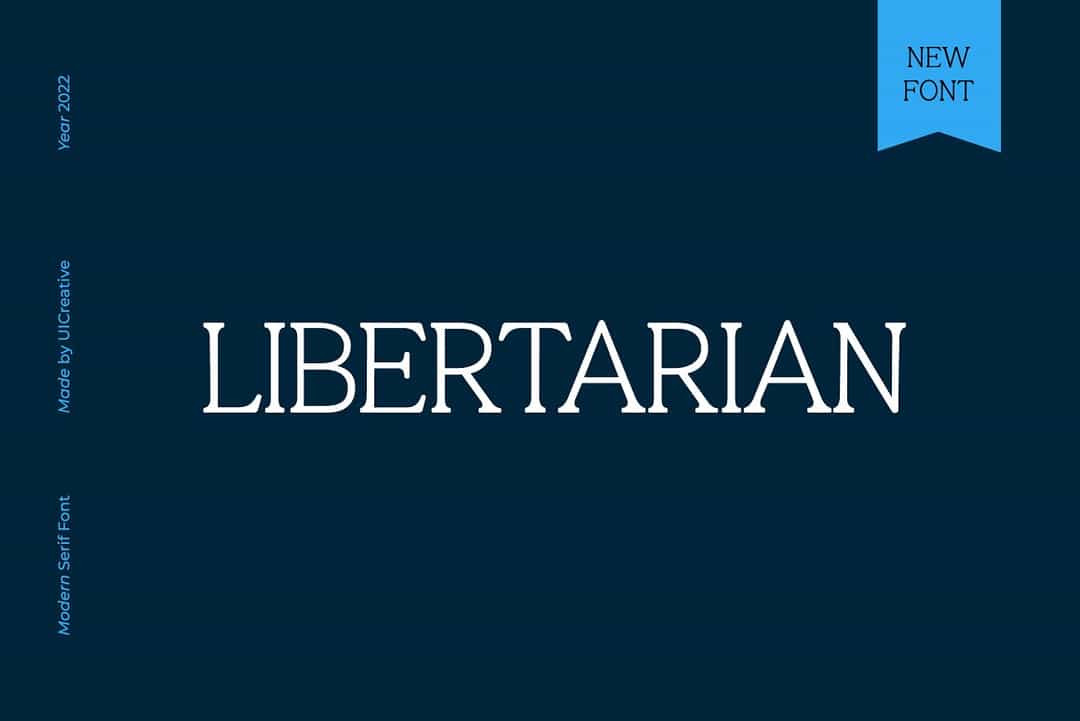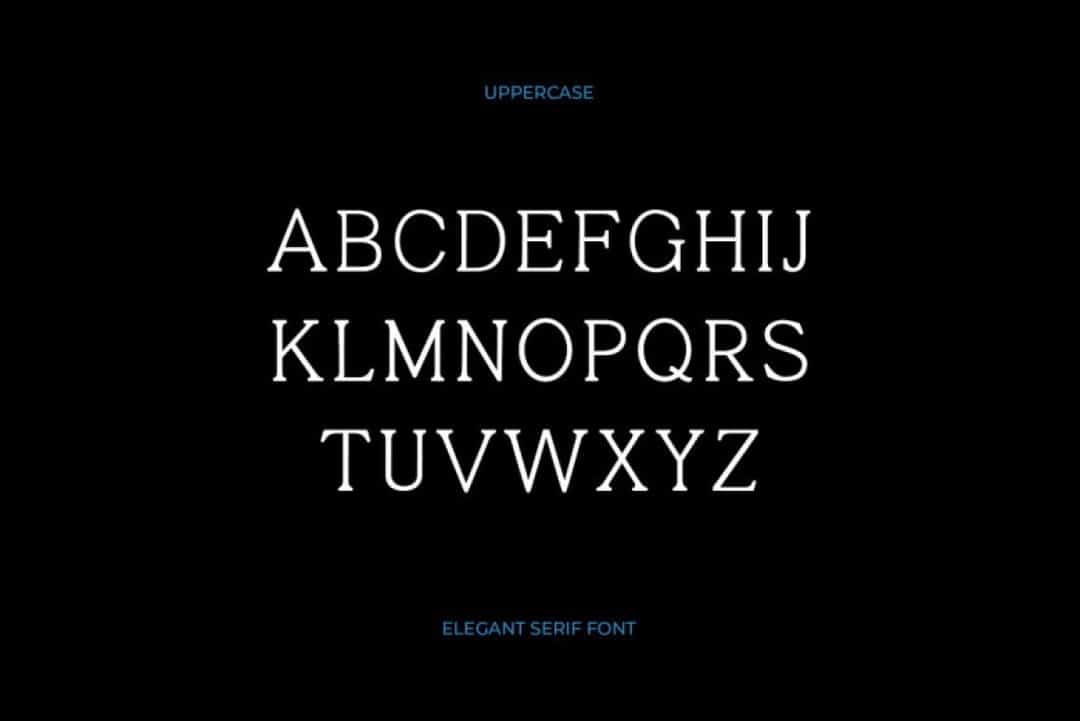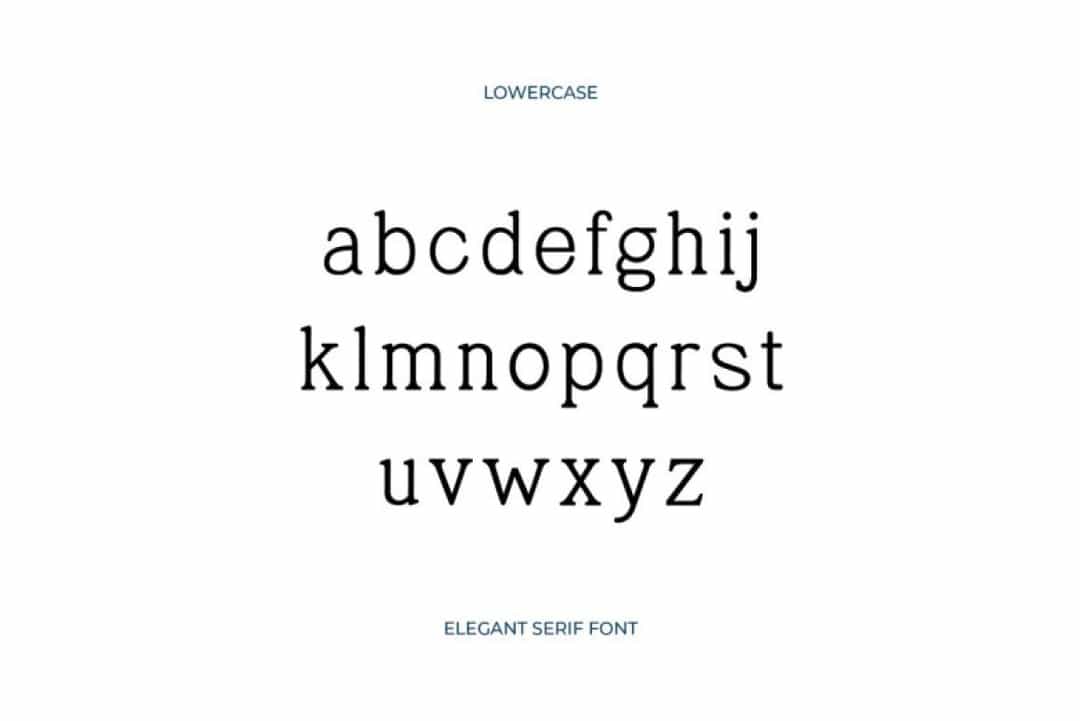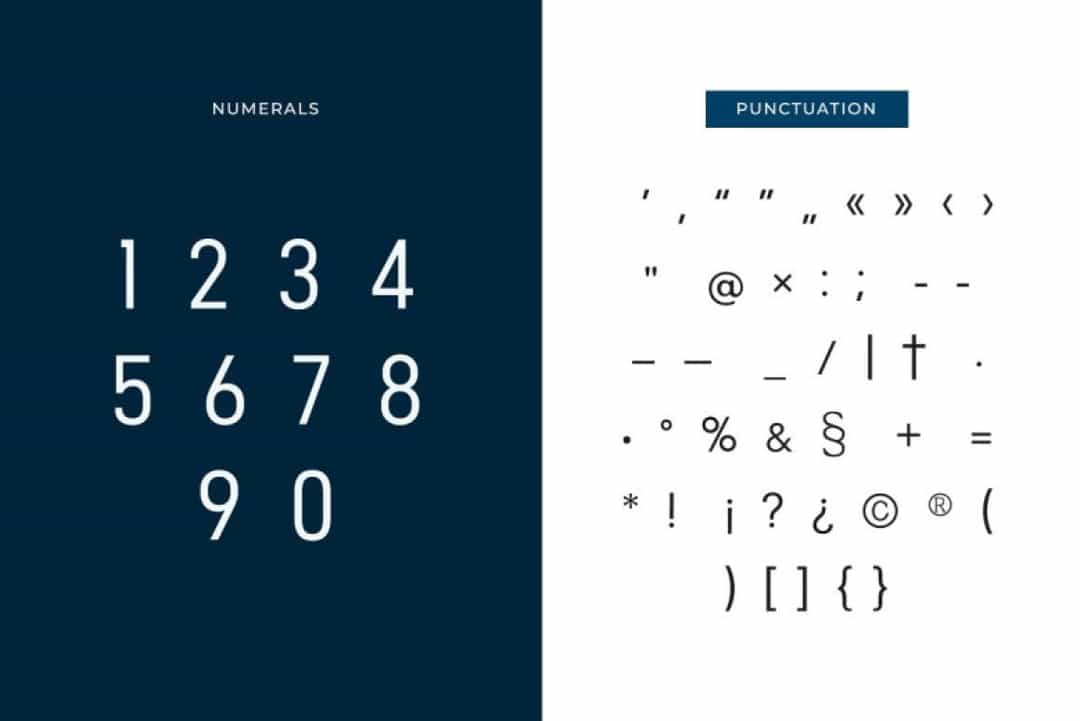
Libertarian can be described as an elegant serif typeface that blends traditional font styles with minimalist aesthetics, producing beautiful and elegant fonts featuring ligatures and font substitutions for every character included in its font family – making discovering your personal style easy! Libertarian’s versatility allows it to be used to design posters, logos covers, covers packaging like business cards or wedding invitations and much more.